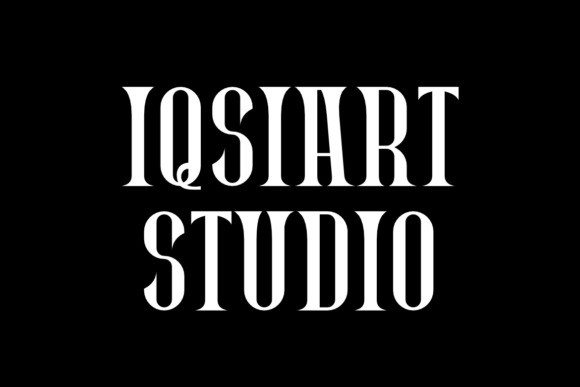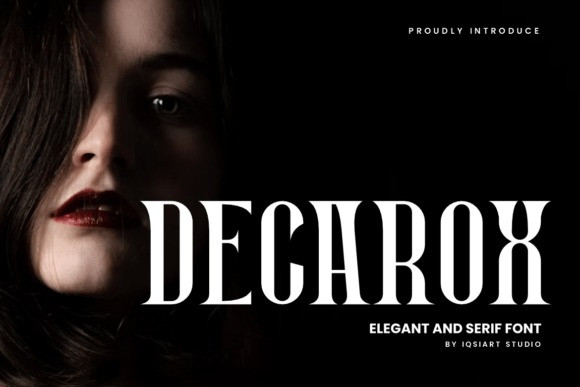
Decarox Font
Decarox Font is a high-contrast serif font that blends elegance with dramatic flair, defined by its sharp vertical strokes and sculptural letterforms. Designed for premium branding, editorial layouts, and fashion-forward visuals, it evokes a sense of sophistication and bold presence. The font’s refined curves and stylized cuts create a luxurious yet contemporary aesthetic, ideal for headlines, logos, and upscale design compositions.